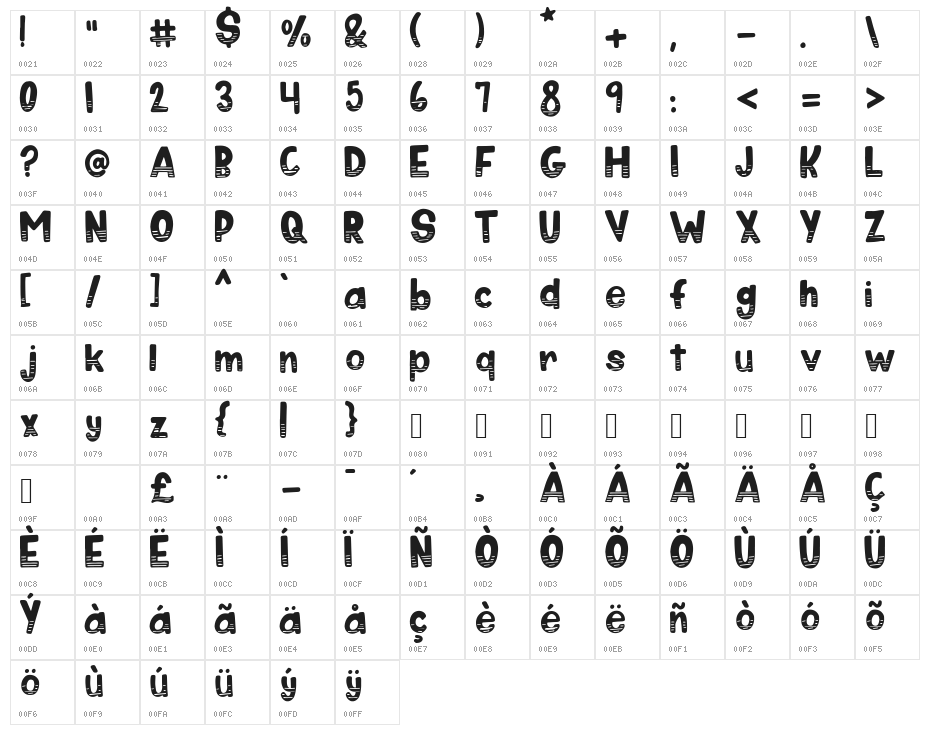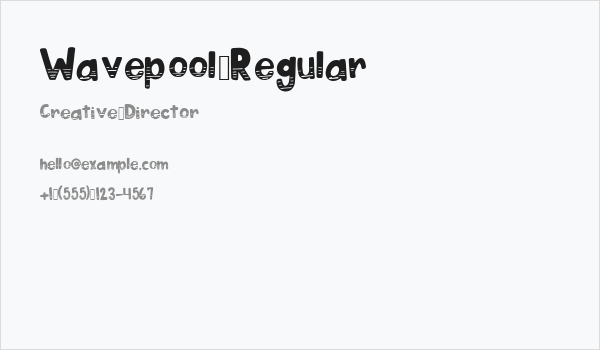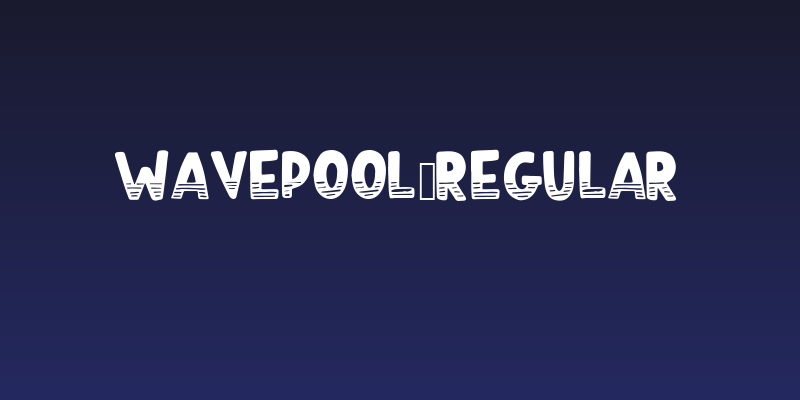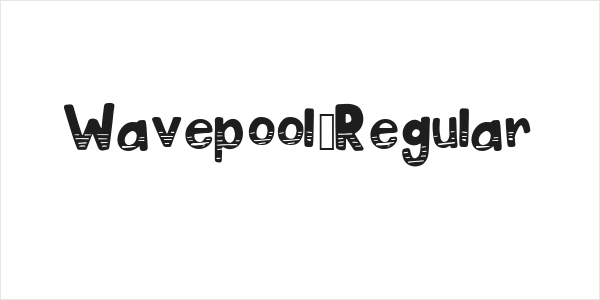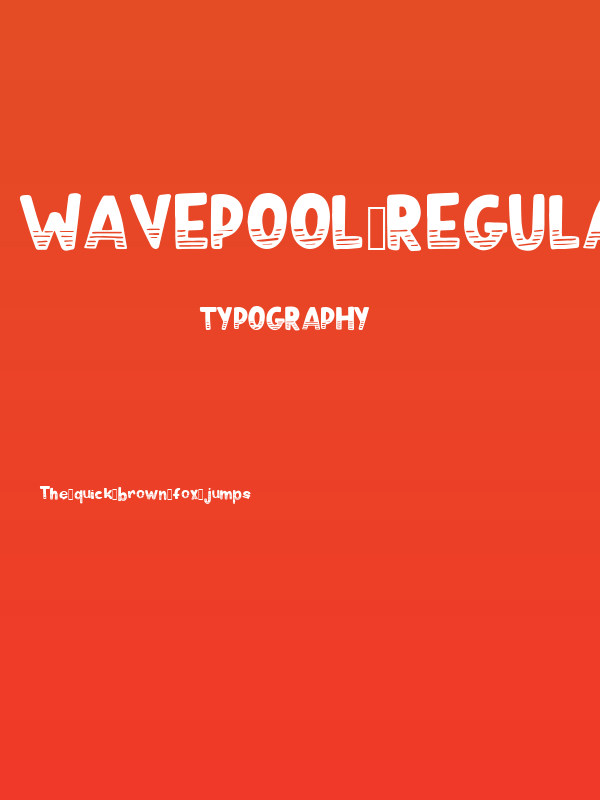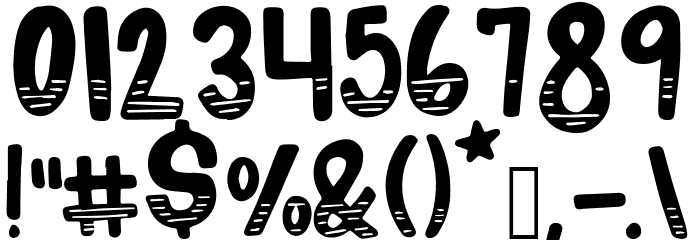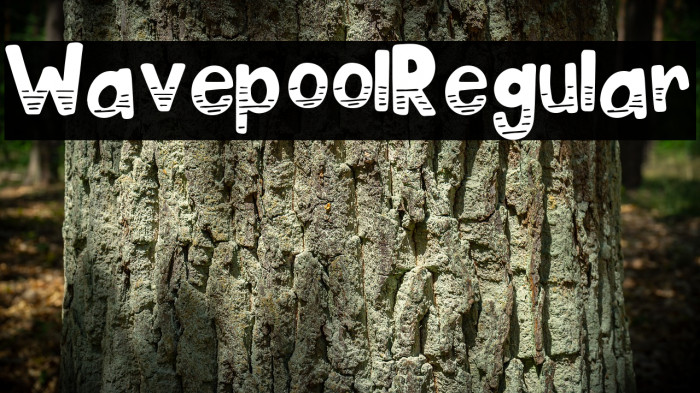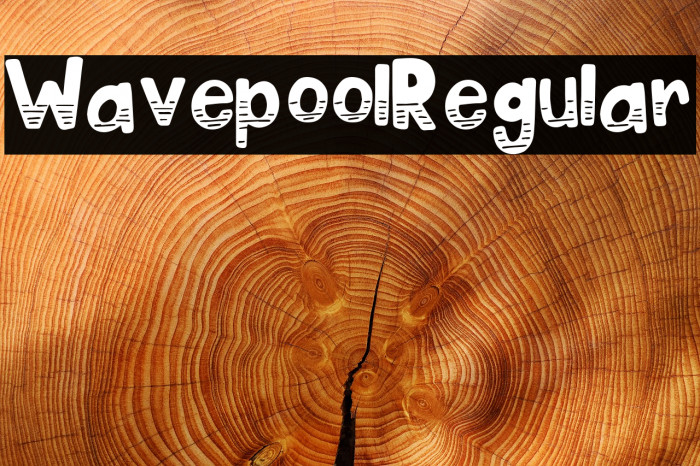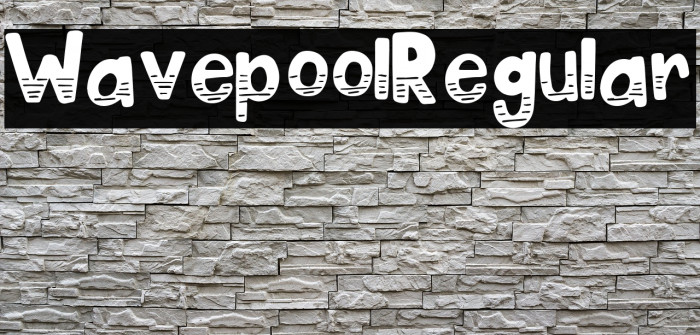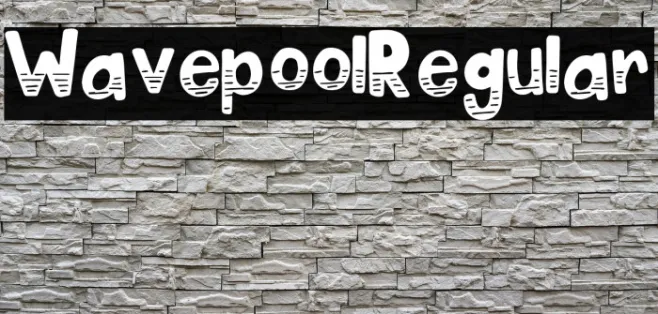
Wavepool Regular Font
Wavepool Regular Description
This playful and bold font features a unique design with a hand-drawn aesthetic. Each character is filled with a striped pattern that adds a dynamic and whimsical touch. The letters are rounded and slightly irregular, giving them a friendly and approachable feel. The font is highly decorative, making it ideal for creative projects that require a fun and engaging look. Its bold weight ensures strong visibility, while the distinct pattern within each character adds an extra layer of visual interest. This font is perfect for projects that aim to capture attention and convey a sense of joy and creativity.
| Proposed Projects | Ideal for children's books, playful branding, posters, and creative invitations. |